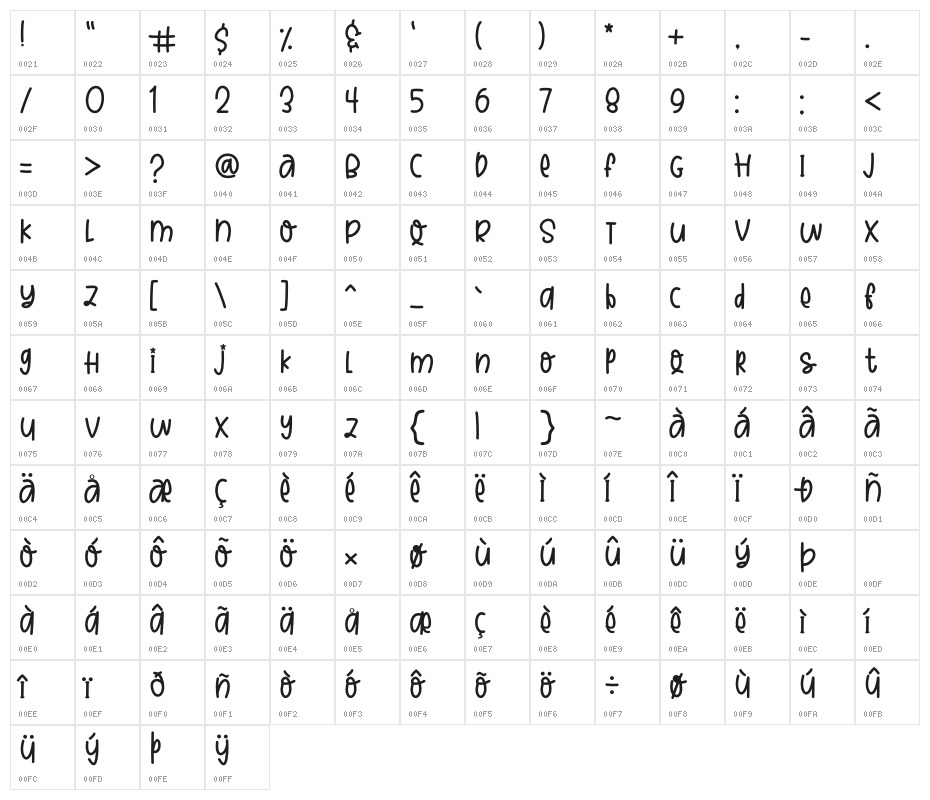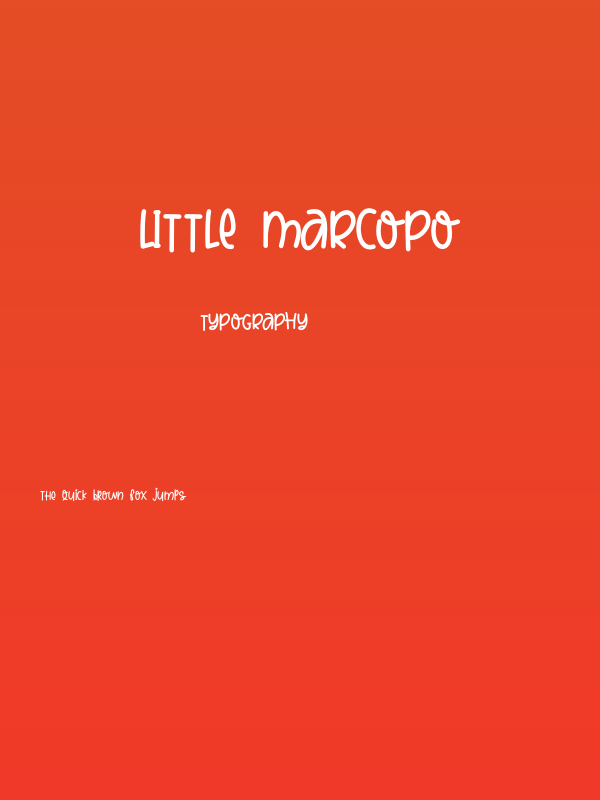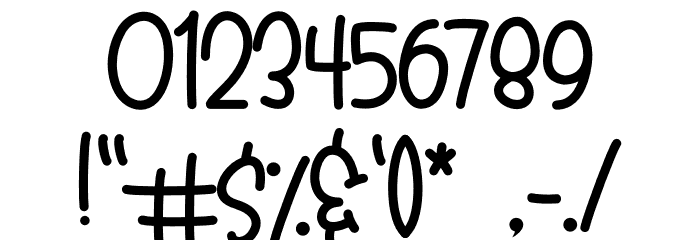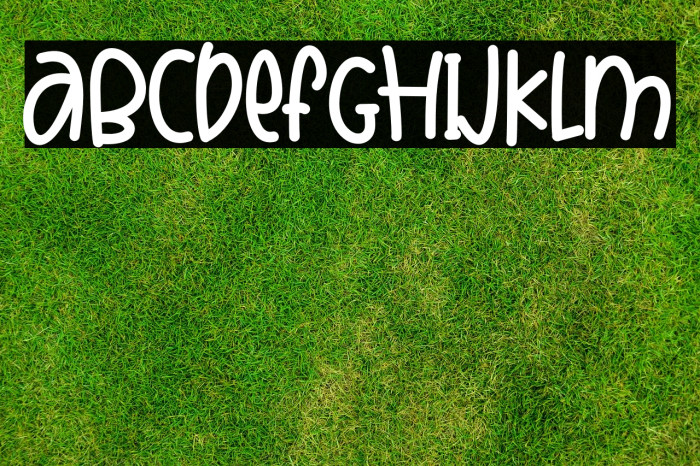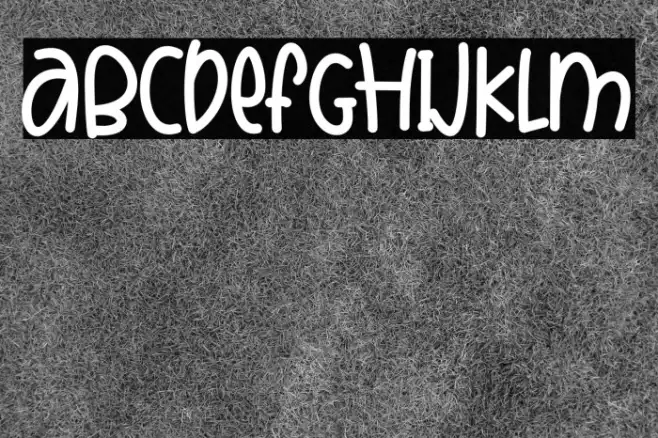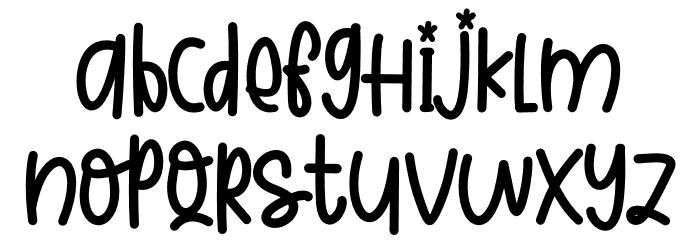
Little Marcopo Font
Little Marcopo Description
This playful and whimsical font features rounded, bubbly characters that exude a sense of fun and creativity. The letters are slightly irregular, giving it a hand-drawn, casual appearance. The strokes are consistent in width, providing a uniform look across all characters. The font includes both uppercase and lowercase letters, numerals, and a variety of special characters, making it versatile for different uses. Its friendly and approachable style is perfect for projects that aim to convey warmth and personality.
| Proposed Projects | Ideal for children's books, greeting cards, playful branding, and social media graphics. |